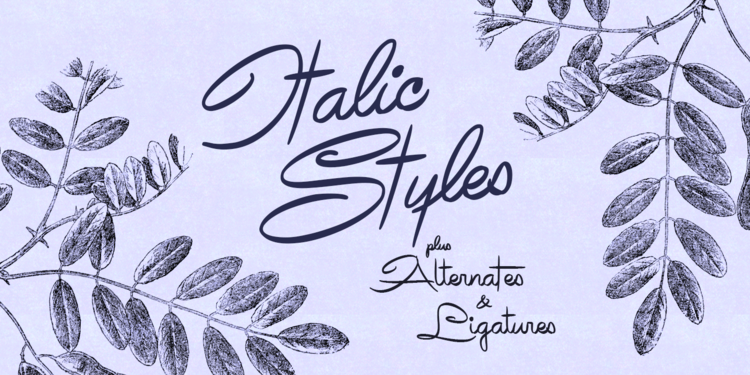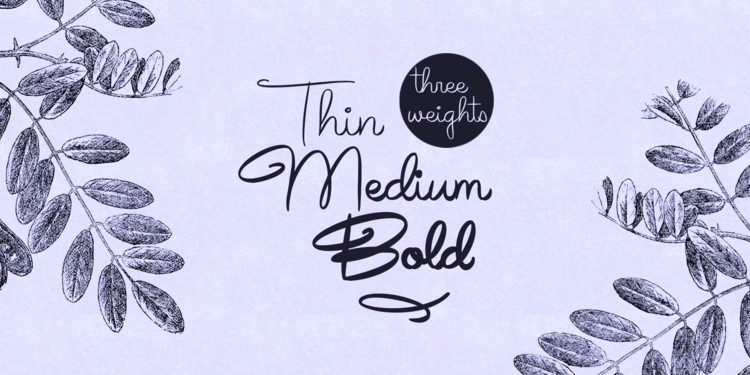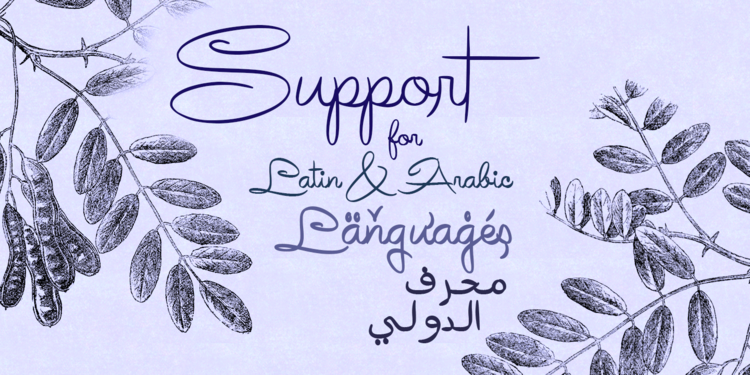
Avelana Script
Avelana Script Font
Avelana is a brush script typeface in true mid-1900s fashion. Hand-drawn by Måns Grebäck during 2018, this high-quality typeface comes in six styles. It has three weights, Avelana Thin, Avelana Medium, Avelana Bold, and each of the thicknesses as Italic. The typeface is perfected for headlines and logotypes where you want a handwritten style.